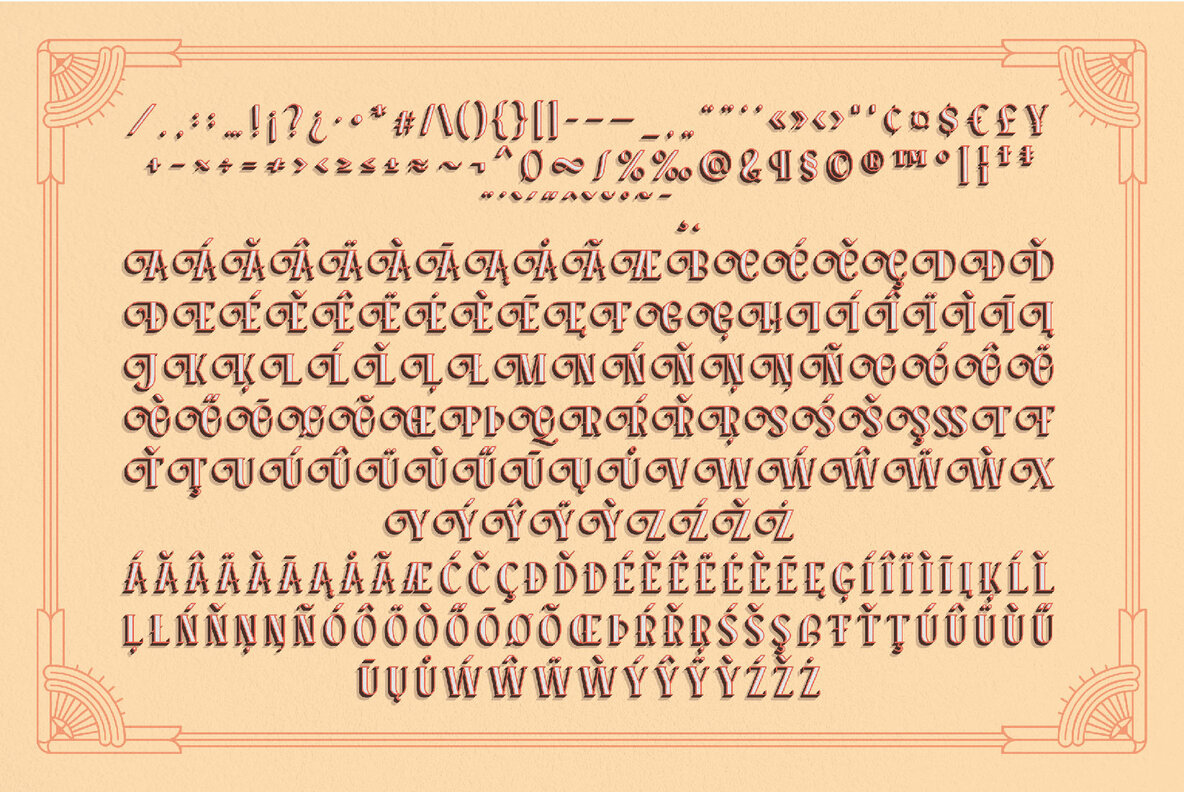
Beijin Font
The Beijin layered serif font, designed by Abbasy Studio, seamlessly combines versatility with elegance. Comprising seven distinctive layer styles, it offers endless possibilities for stacking and customization, enhancing your design process with over 407 glyphs. This font includes Stylistic Sets and Contextual Alternates, offering OpenType features that allow for unique letter pairings. Beijin is ideally suited for a myriad of creative endeavors: logos, greeting cards, quotes, posters, branding, or stationery. Its adaptability also makes it perfect for design titles, blog headers, art quotes, typography art, and modern envelope lettering. Elevate your project with this contemporary yet timeless serif font.Beijin: A Multi-Layered Serif Font